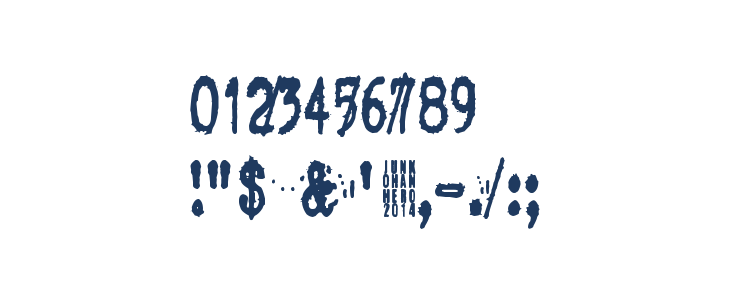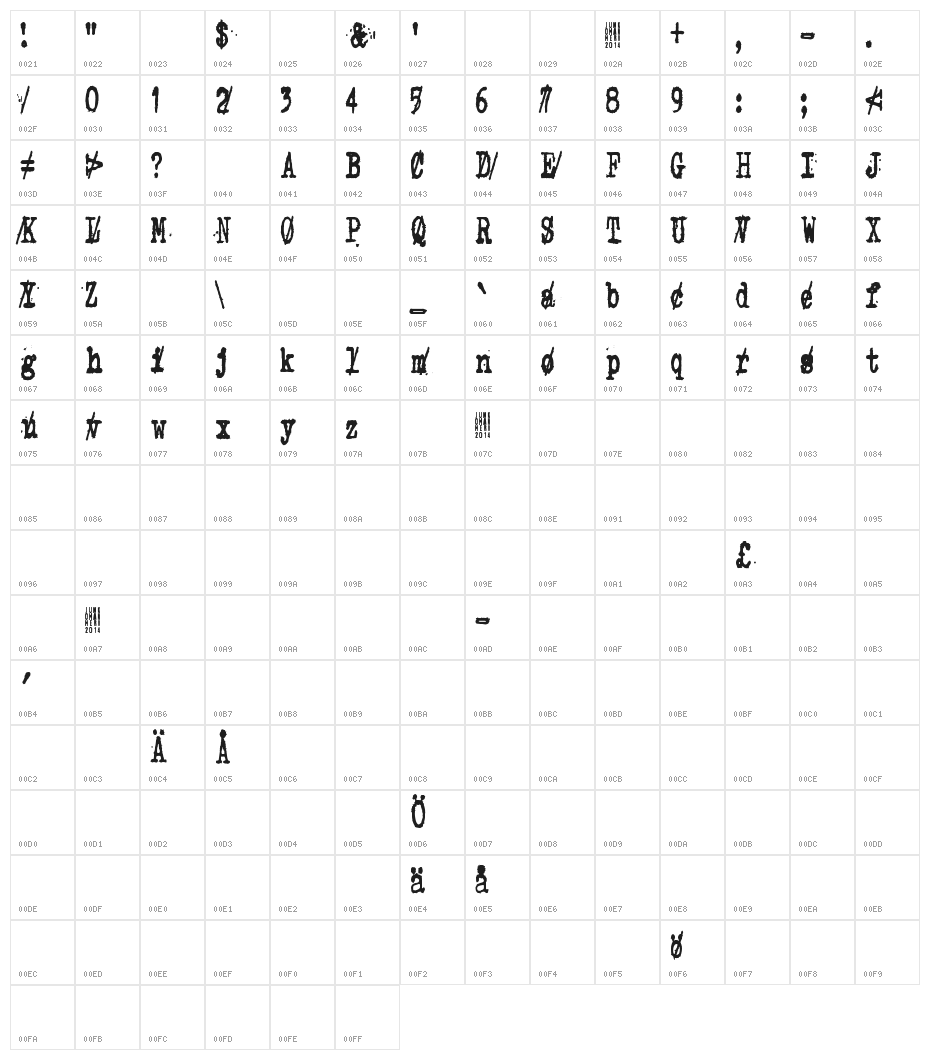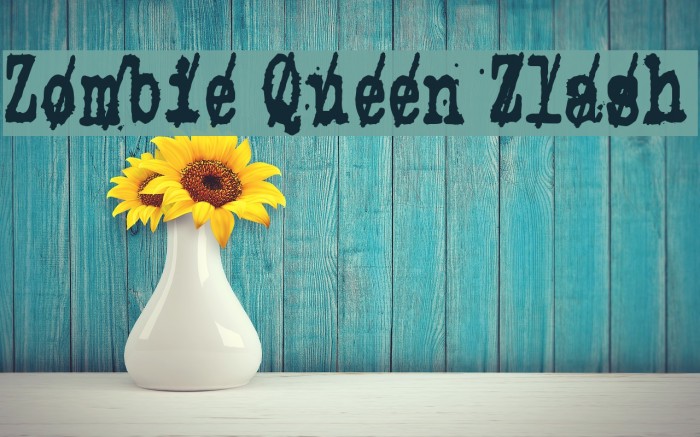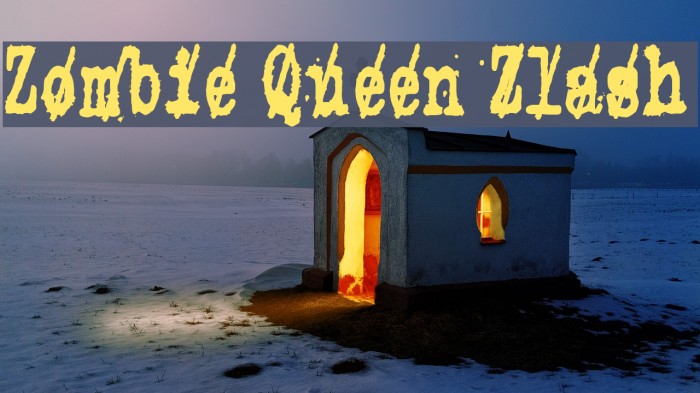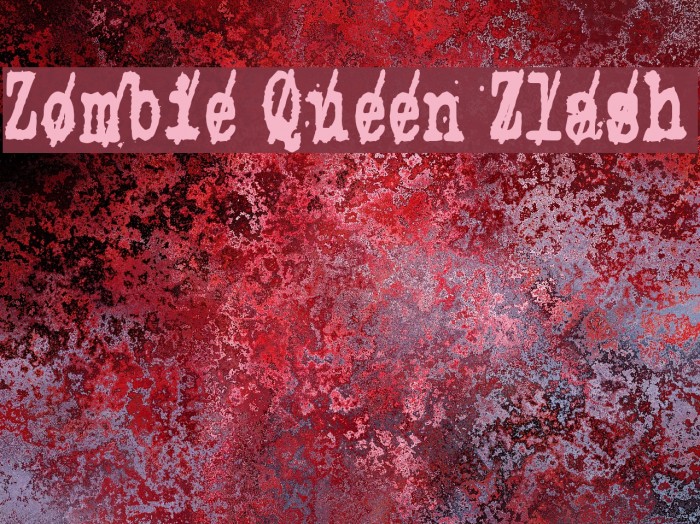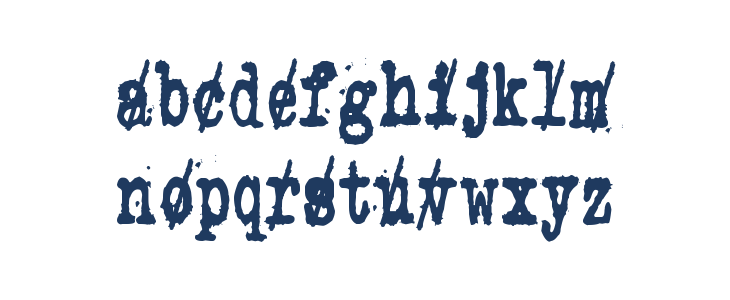
Zombie Queen Zlash Font
Zombie Queen Zlash Description
This font features a distressed, grungy style with uneven edges and a splattered appearance, reminiscent of horror or zombie themes. The characters are bold and irregular, with a hand-drawn quality that adds to its chaotic and edgy aesthetic. The uppercase and lowercase letters maintain a consistent style, with exaggerated serifs and varying stroke widths that contribute to its unique, unsettling look. The numbers and special characters follow the same design principles, ensuring a cohesive appearance across all elements. This font is ideal for projects that require a dramatic, eye-catching typeface with a rebellious or eerie vibe.
| Use Case | Headlines, Posters, Logos |
| Proposed Projects | Ideal for horror movie posters, Halloween event flyers, edgy graphic designs, and alternative music album covers. |